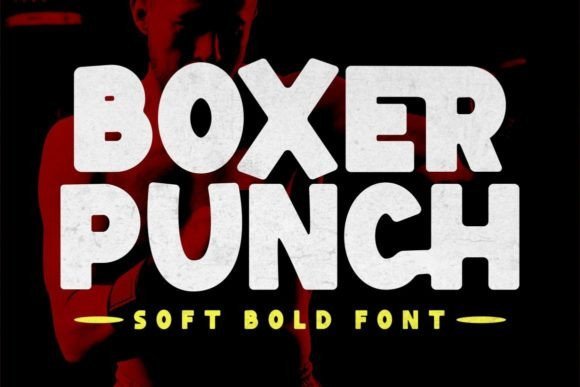
Designing with Punch
As designers, we’re always on the lookout for the perfect font to capture our audience’s attention. It’s that moment when you’re brainstorming ideas, scrolling through font libraries, and suddenly, a font pops up that makes everything click. For me, that moment came when I discovered the Boxer Punch Font. Its unique blend of soft bold and cute sans serif elements had me hooked from the start.
Boxer Punch Font is more than just a stylish font – it’s a versatile tool designed to elevate your designs. With its understated realism and smooth lines, it’s perfect for creating professional yet modern designs that grab attention. Whether you’re working on sports-themed projects, branding, or social media graphics, Boxer Punch Font is an excellent choice. Its OpenType features, including alternates and ligatures, make it a valuable addition to any designer’s toolkit.
Boxer Punch Font Key Features
- Unique Characteristics: Boxer Punch features a distressed, vintage-inspired design with bold lines, rough edges, and a distressed texture, giving it a unique and eye-catching appearance.
Boxer Punch Font Review
I recently had the chance to work with the Boxer Punch Font, and I wanted to share my honest thoughts on this font. Let’s dive in!
- The unique design of Boxer Punch Font is a major standout. The mix of bold lines and rounded edges creates a fun, energetic vibe.
- The font is highly customizable, making it easy to adjust the style to fit your needs.
- It’s a great choice for headings and titles, adding a touch of personality to your design.
- The font may be a bit too playful for formal or professional projects.
- Some characters, such as the ‘e’ and ‘a’, can appear a bit inconsistent in their design.
- The font might not be the best choice for large blocks of text, as it can become overwhelming.
Overall, I think Boxer Punch Font is a great addition to any designer’s toolkit. While it may have some limitations, its unique design and high customizability make it a great choice for the right projects. Just be mindful of its potential drawbacks and use it judiciously.
Boxer Punch Font Practical Application Guide
Use the Boxer Punch Font for headings, titles, and other text elements to add a bold and playful touch to your designs. It’s particularly effective for use in sports-themed designs, children’s products, and playful branding. Experiment with different font sizes, styles, and colors to create a unique and eye-catching look.